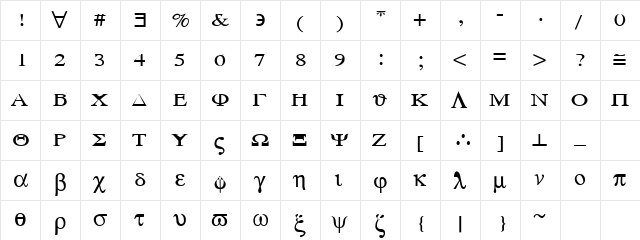
Symbols Regular Font Preview
Symbols Regular
Symbols Regular Font Details
Design Context for Symbols Typeface
Symbols offers clean, dependable letterforms without strong stylistic allegiance, making it a practical choice for designers who need flexibility.